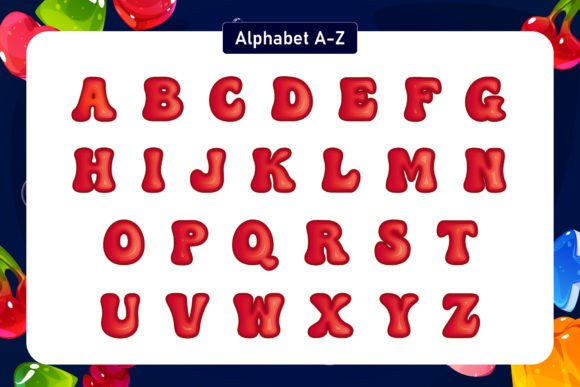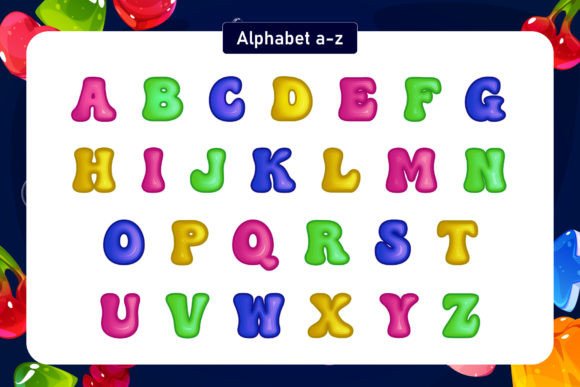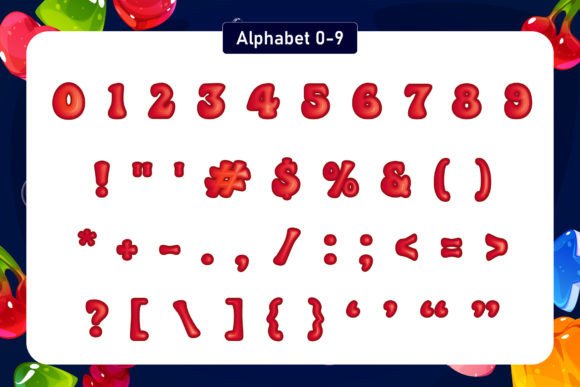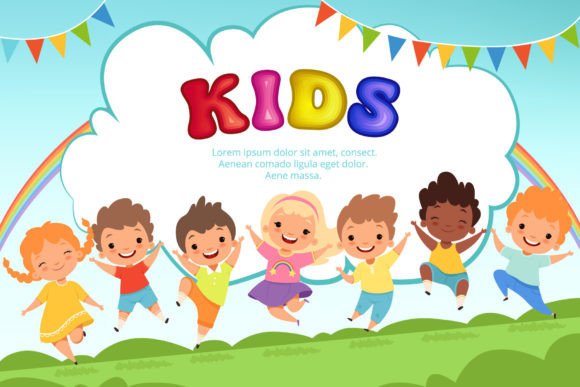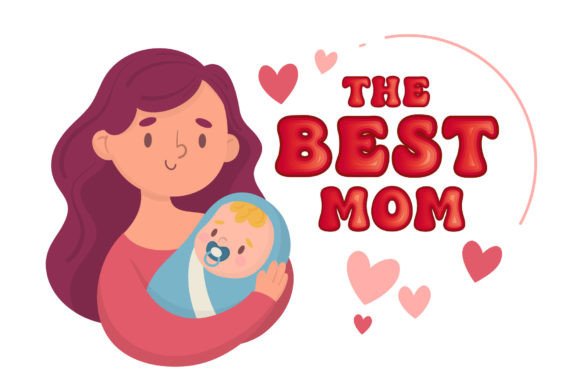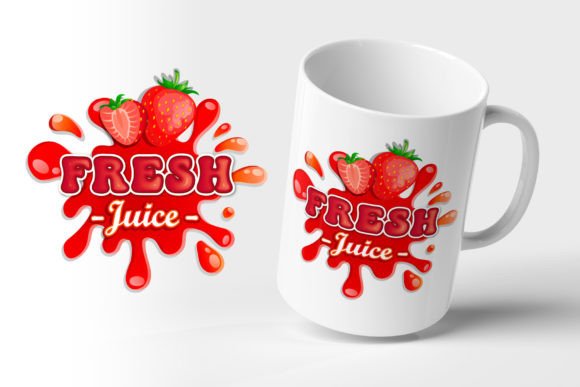
Introduction to Jelly Groovy Font Font
Fonts play a crucial role in design, and the Jelly Groovy Font font is a typeface that brings both character and versatility to any project. Whether you’re working on a branding project, a website, or a print design, the Jelly Groovy Font font offers a unique style that can elevate your work.
Jelly Groovy is a cute, bright, and fun color font.
Fall in love with its authentic feel and use it to create gorgeous invitations, beautiful stationary art, eye-catching social media posts, and cute greeting cards Add this beautiful font to each of your creative ideas, and notice how it makes them stand out.
Key Features of Jelly Groovy Font Font
Why Choose Jelly Groovy Font Font?
The Jelly Groovy Font font is more than just a typeface – it’s a design tool that helps you communicate your message with style and clarity. Its unique character set and versatile design make it suitable for a wide range of applications, from elegant invitations to bold headlines.
With its carefully crafted letterforms and balanced proportions, the Jelly Groovy Font font ensures readability and visual appeal across all mediums.
What makes Jelly Groovy Font font special?
The Jelly Groovy Font font stands out with its unique design, exceptional readability, and versatility across various design applications.